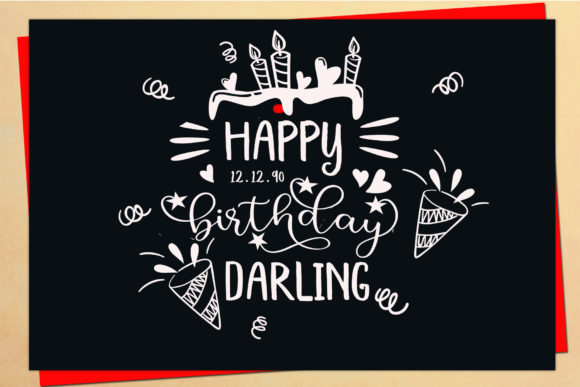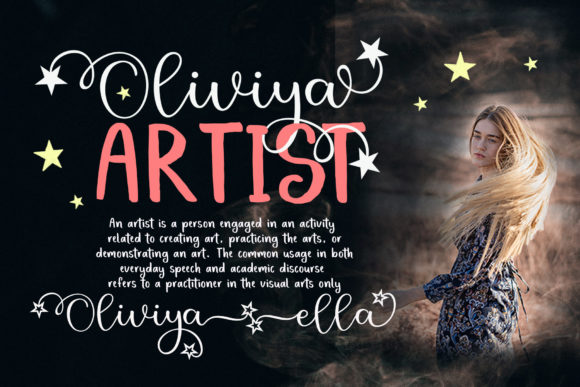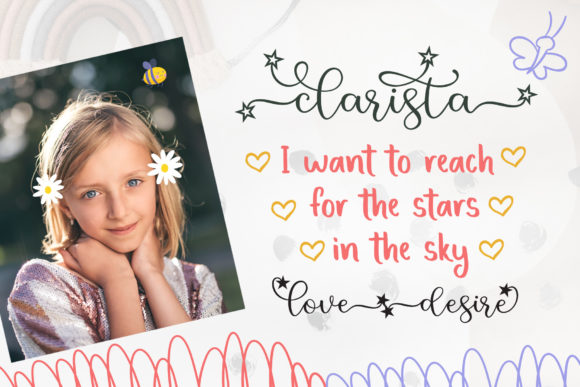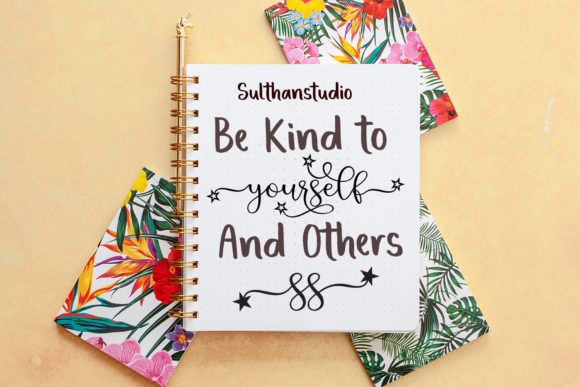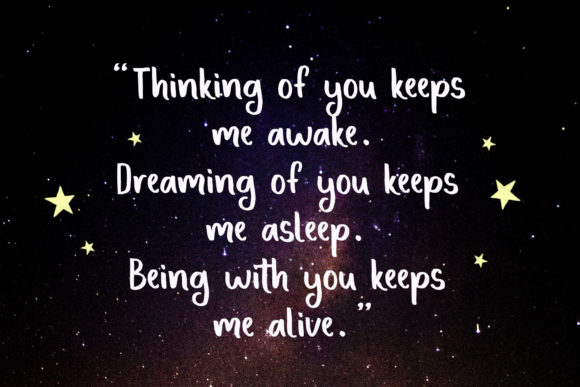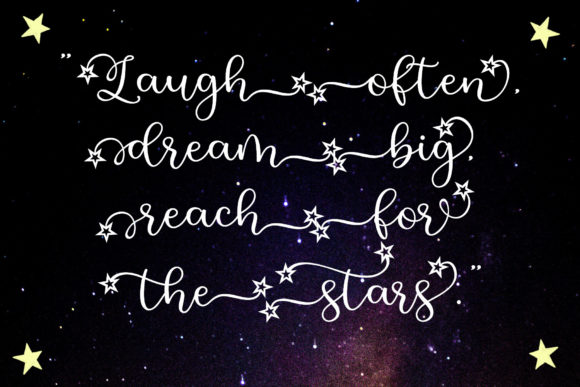
Introduction to Lighting Start Font
Have you ever stared at a blank canvas, waiting for that perfect spark to ignite your creative project? For designers, this moment can be both exhilarating and intimidating. It’s in these moments that we turn to trusted design resources to help us bring our vision to life. And that’s exactly where the Lighting Start Font comes in – a highly detailed and magical script font that exudes elegance and class.
Whether you’re working on a high-quality logo design or need a beautiful and refreshing look for your next project, the Lighting Start Font is an invaluable asset in your design arsenal. With its PUA encoding, you can access all glyphs and swashes with ease, making it a breeze to customize and perfect your design. And the best part? It’s available for free download, making it a valuable addition to any designer’s toolkit.
Key Features of Lighting Start Font
- High-quality design for creative projects: This font is perfect for designers and artists looking for a unique and stylish typography for their projects.
- Transparent background: The font features a transparent background, making it easy to use on any background or design.
- Size: The font is available in a range of sizes, from 8 to 72 points, making it versatile for use in various design projects.
- Resolution: The font is designed at 300 DPI, making it suitable for high-resolution designs and prints.
- Unique characteristics: The Lighting Start Font features a unique blend of modern and vintage styles, making it a great addition to any design resource collection.
Honest Review: Lighting Start Font
I recently had the chance to work with the Lighting Start Font for a creative project, and I must say it was a great experience. This font is perfect for those looking for a high-quality, modern design resource.
- Transparency: The font has a transparent background, making it easy to use with any design element.
- Modern Aesthetic: The font has a sleek, modern design that’s perfect for creative projects.
The only limitation I found was that the font is only available in a limited number of weights. This may not be ideal for designers who need a wide range of font weights for their project.
Overall, I was impressed with the Lighting Start Font. It’s a great design resource for anyone looking for a modern, high-quality font. The free download and transparent background make it easy to use, and the modern aesthetic is perfect for creative projects. While it may have some limitations, I would definitely recommend it to designers looking for a reliable font.
Tips for Getting the Most Out of Lighting Start Font
To get the most out of the Lighting Start Font, consider the following tips: use it in conjunction with a transparent background to create a clean and modern design, experiment with different font sizes and styles to add visual interest, and pair it with other high-quality design resources to create a cohesive look.
The Lighting Start Font is ideal for use in creative projects that require a clean and modern design, such as brochures, flyers, and social media graphics. It’s also a great resource for designers who need a free download of a high-quality font.